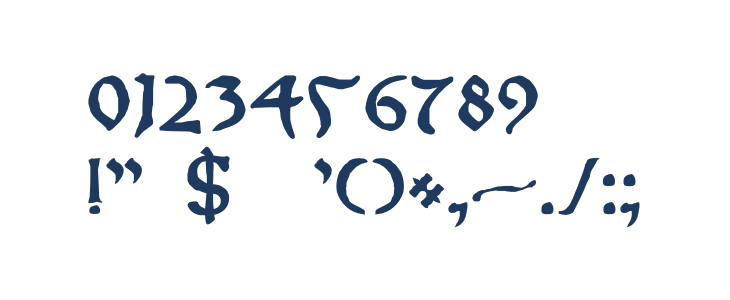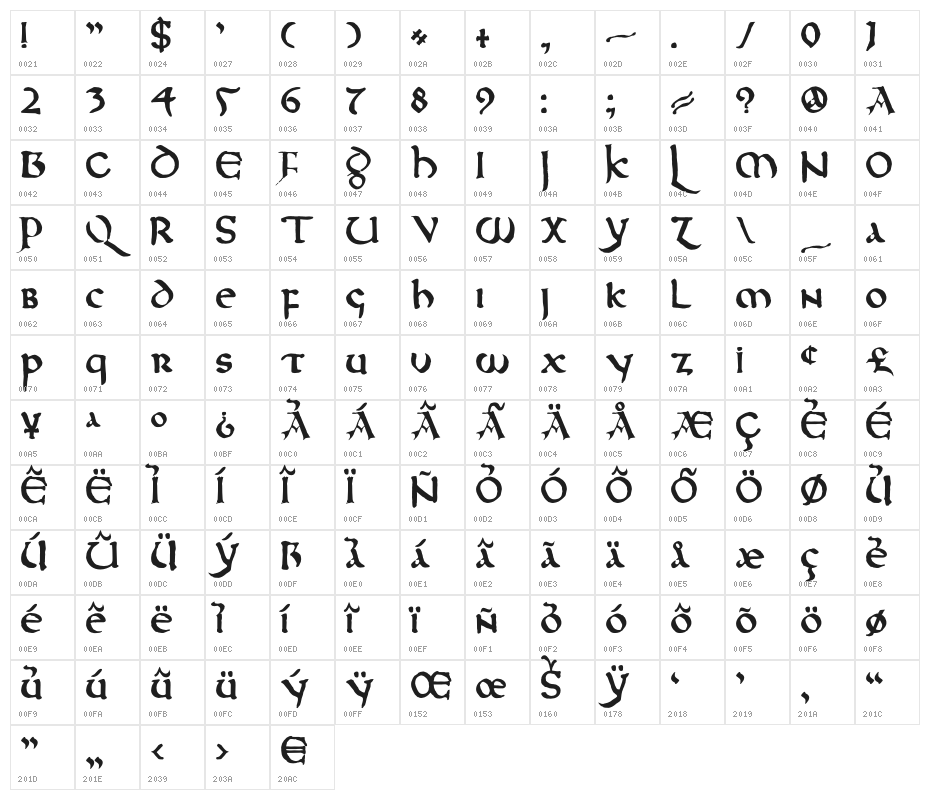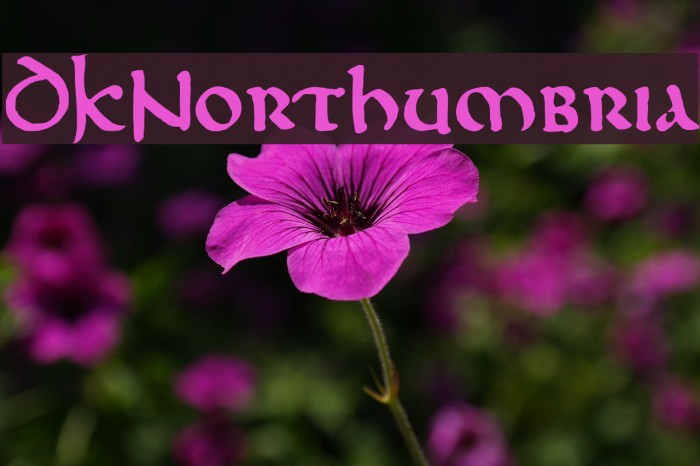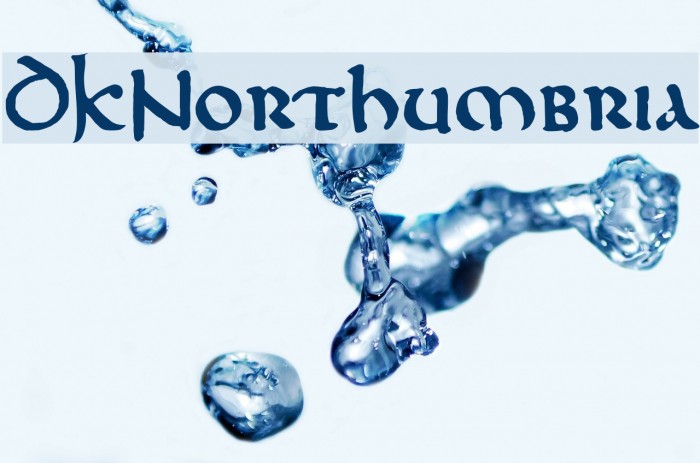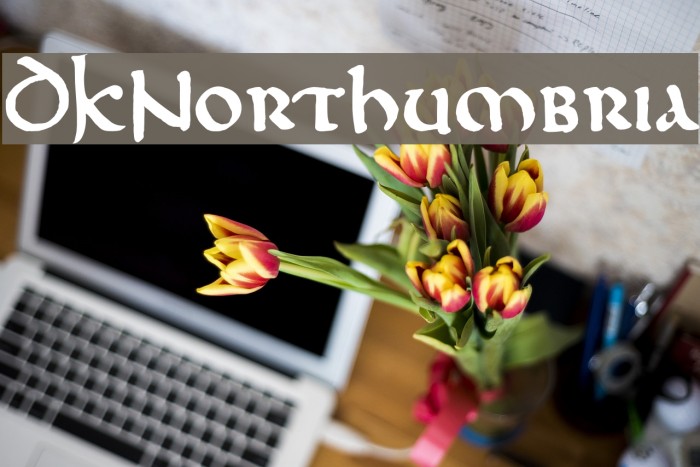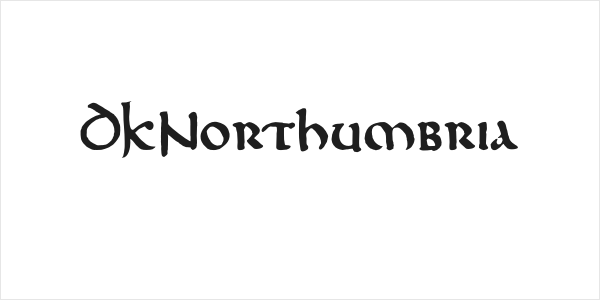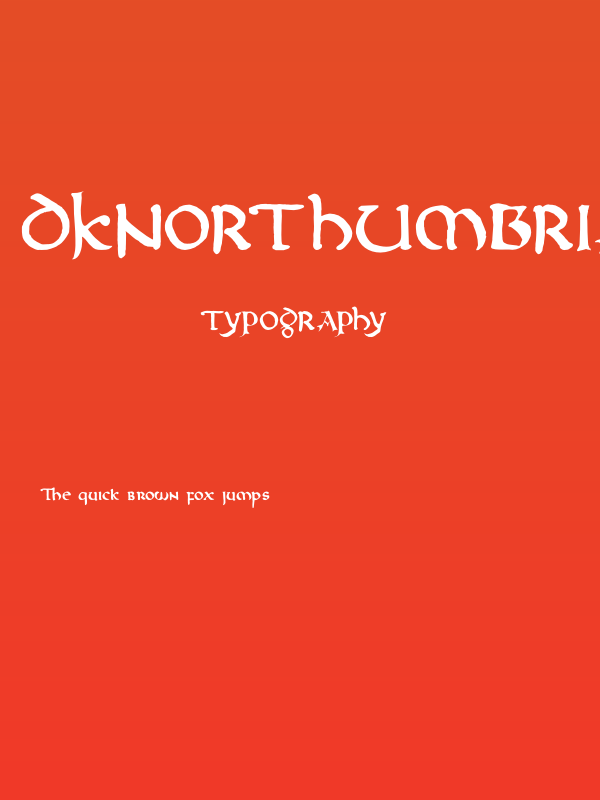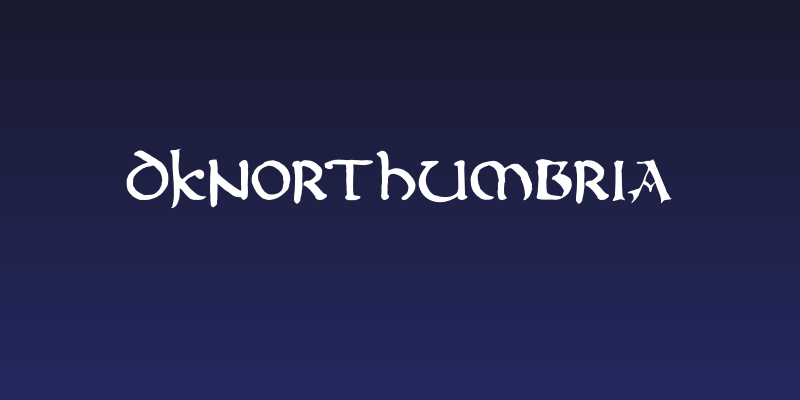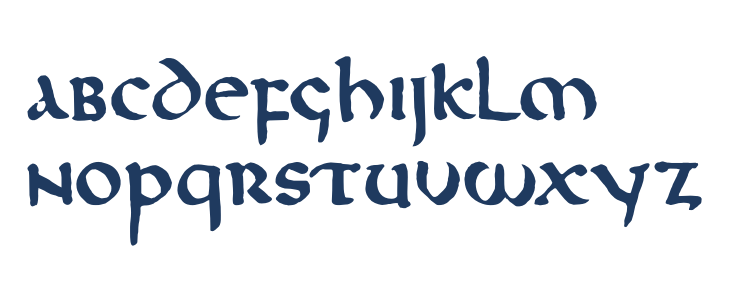
DKNorthumbria Font
DKNorthumbria Description
This font exhibits a distinct medieval and historical aesthetic, reminiscent of ancient scripts and manuscripts. The characters are crafted with a calligraphic flair, featuring sharp, angular strokes and unique, decorative elements that give it a hand-drawn appearance. The uppercase letters are bold and commanding, while the lowercase letters maintain a consistent style, offering a cohesive look. Numbers and special characters are designed to match the overall theme, enhancing the font's versatility. The font's intricate details and artistic touches make it suitable for projects that require a touch of antiquity and elegance.
| Proposed Projects | Ideal for historical documents, fantasy book covers, themed event invitations, and branding for vintage or artisanal products. |